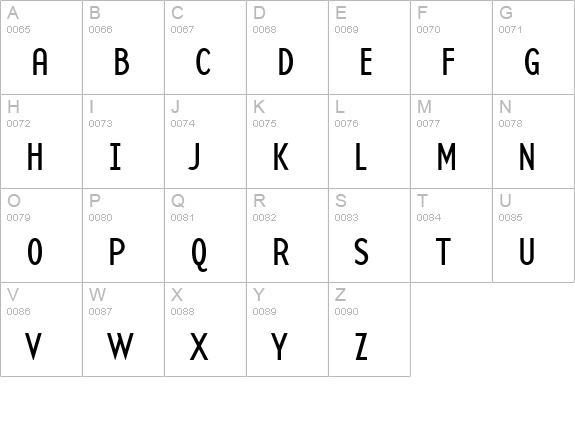
BaseTwelveSansSmallcaps Regular Font Details
BaseTwelveSansSmallcaps Regular is the standard, neutral variant in the BaseTwelveSansSmallcaps typeface family \xE2\x80\x94 well suited to general body text, paragraphs, and standard typographic work.
BaseTwelveSansSmallcaps Regular font is a modern and sleek typeface that exudes elegance and sophistication. Its clean lines and subtle curves make it a versatile choice for a wide range of design projects. This font features small caps style, adding a touch of uniqueness and charm to any text. Best of all, BaseTwelveSansSmallcaps Regular font is available for free download at FontsMarket.com. Whether you're working on a professional project or a personal endeavor, this font is sure to elevate your design and leave a lasting impression. Don't miss out on the opportunity to add this stylish and contemporary font to your collection today!